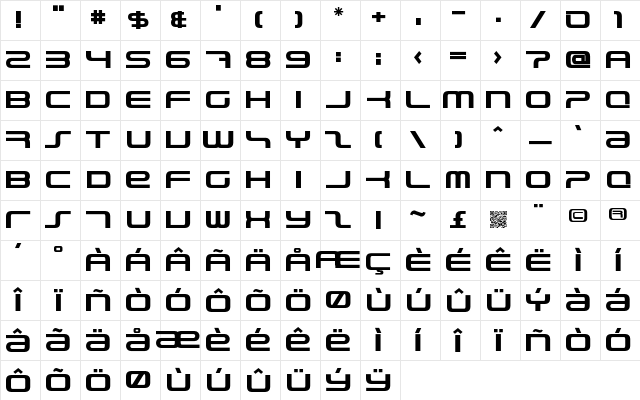
Complete PhatBoy Slim Bold glyph index. Displaying only characters natively supported by PhatBoy Slim Bold font.
PhatBoy Slim is a composed and adaptable typeface that performs quietly and consistently across a wide range of design contexts. Its bold stroke weight gives it real presence on the page.
Who designed the PhatBoy Slim Bold font?